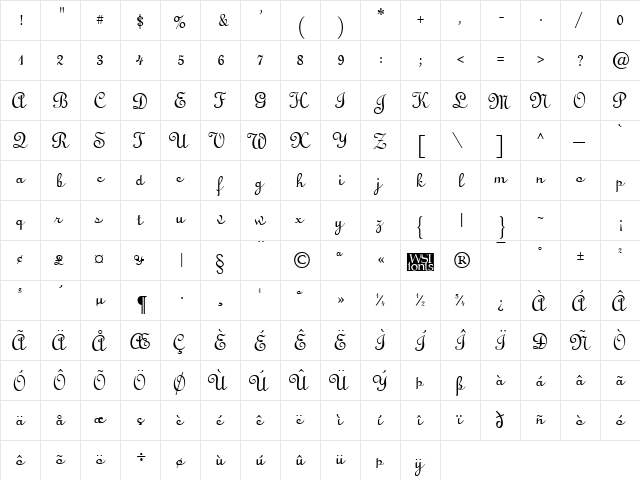
LinusScript Regular
Design Context for LinusScript Typeface
LinusScript flows with the natural rhythm of handwritten lettering, making it ideal for designs that call for warmth and personal expression.
Font Pairing: Combine LinusScript with a simple geometric sans for maximum contrast — the tension between flowing curves and clean structure is a classic typographic pairing.
Pro Tip: Use LinusScript for short runs of text — names, titles, or taglines. Extended body copy in script faces tires the eye quickly.